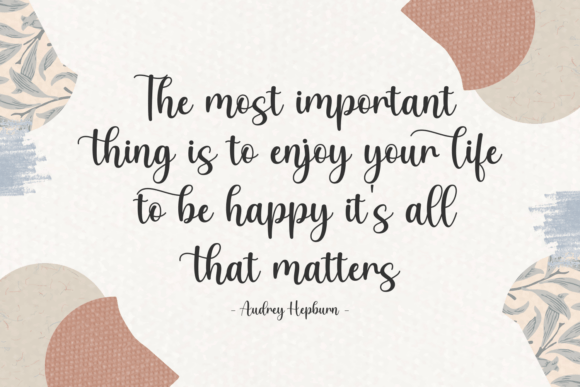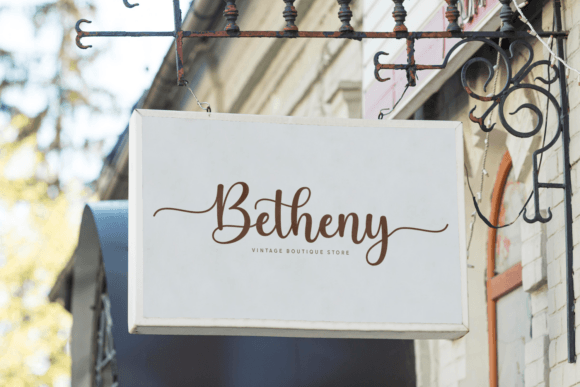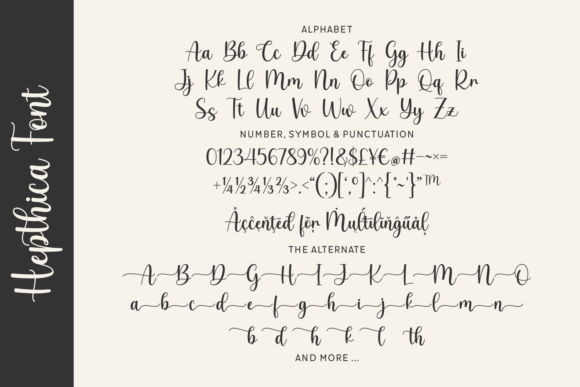
Introduction to Hepthica Font
Do you ever find yourself staring at a blank canvas, searching for the perfect font to elevate your creative project? The moment of truth, when all your design ideas come together, is what drives us as designers. And that’s exactly where the Hepthica Font comes in – a game-changing modern script font that will breathe life into your most ambitious design endeavors.
With its stunning front and back swashes, the Hepthica Font exudes a sophisticated and polished look that’s perfect for wedding invitations, logos, branding, social media, and any design that demands a touch of elegance. Whether you’re a seasoned designer or just starting out, this high-quality font is a valuable resource that will take your designs to the next level.
Key Features of Hepthica Font
- High-quality design resource perfect for creative projects, including logos, posters, and other visual content.
- Includes a range of glyphs and characters, including international characters and symbols, for maximum versatility.
- Designed to be highly legible and visually appealing, with a unique and stylish aesthetic.
Honest Review: Hepthica Font
I recently had the chance to experiment with the Hepthica Font in one of my creative projects, and I must say it’s a solid addition to any design resource.
- ✨ High quality typography: Hepthica Font features crisp and clean lines that make it perfect for a variety of design applications.
- ✨ Versatile style: It’s suitable for both digital and print media, allowing designers to adapt their creative project to different formats.
While Hepthica Font excels in many areas, there are a few limitations to consider.
- ⚠️ Limited font weights: Hepthica Font only comes in a few font weights, which might limit its use in certain design scenarios.
- ⚠️ Not suitable for headings: Due to its size and style, Hepthica Font is better suited for body text rather than headings.
Overall, I’m impressed with Hepthica Font’s performance in my creative project. It’s a solid choice for designers looking for a high-quality font that’s easy to work with.
The Hepthica Font is a high-quality, versatile design resource ideal for various creative projects. This font features a transparent background, making it easy to customize and integrate into your design.
Tips for Getting the Most Out of Hepthica Font
To get the most out of the Hepthica Font, consider the following tips:
- Combine the Hepthica Font with other design elements to create a cohesive look.
Common Use Cases for Hepthica Font
The Hepthica Font is suitable for a variety of design projects, including:
- Business cards and resumes